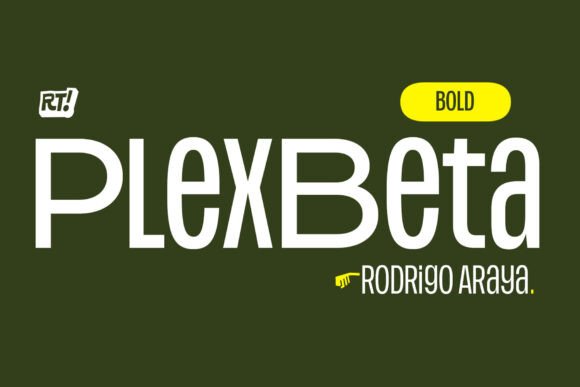
Plex Beta Bold Font: Elevate Your Design with a Powerful Sans-Serif Typeface
The world of typography is vast and diverse, with numerous font styles and families to choose from. When it comes to creating visually striking designs, the right font can make all the difference. This is where Plex Beta Bold comes into play – a robust and modern sans-serif font that is designed to bring clarity, presence, and impact to any design project. In this article, we’ll explore the features, benefits, and uses of Plex Beta Bold, and how it can elevate your design game.
Introducing Plex Beta Bold: A Powerful Sans-Serif Font
Plex Beta Bold is a part of the Plex Beta font family, which is known for its futuristic and geometric style. This bold weight is specifically designed to deliver maximum impact and legibility, making it perfect for standout headlines, logos, and poster designs. With its thick strokes and modern structure, Plex Beta Bold is sure to grab attention and leave a lasting impression.
Key Features of Plex Beta Bold
- Geometric Structure: Plex Beta Bold features a modern geometric structure that gives it a sleek and futuristic look.
- Thick Strokes: The font’s thick strokes provide excellent legibility and make it perfect for large-scale designs.
- Sans-Serif Style: The sans-serif style of Plex Beta Bold gives it a clean and minimalist look that works well in a variety of design contexts.
- Futuristic Style: The font retains Plex Beta’s signature futuristic style, making it ideal for designs that require a modern and edgy look.
Uses of Plex Beta Bold
Plex Beta Bold is a versatile font that can be used in a wide range of design projects. Here are some of the most popular uses of this powerful sans-serif font:
Headlines and Titles
Plex Beta Bold is perfect for creating attention-grabbing headlines and titles. Its thick strokes and modern structure make it easy to read, even at large sizes.
Logos and Branding
The bold and geometric style of Plex Beta Bold makes it an excellent choice for logos and branding projects. It can help create a strong and memorable visual identity for your brand.
Poster Designs
Plex Beta Bold is well-suited for poster designs, where its bold and eye-catching style can help grab attention and convey a message effectively.
Benefits of Using Plex Beta Bold
There are several benefits to using Plex Beta Bold in your design projects. Here are some of the most significant advantages:
Improved Legibility
The thick strokes and modern structure of Plex Beta Bold make it easy to read, even at large sizes or from a distance.
Enhanced Visual Impact
The bold and geometric style of Plex Beta Bold can help create a strong visual impact, making it perfect for designs that require attention-grabbing headlines or titles.
Versatility
Plex Beta Bold is a versatile font that can be used in a wide range of design projects, from posters and logos to headlines and titles.
Tips for Using Plex Beta Bold Effectively
Here are some tips for using Plex Beta Bold effectively in your design projects:
Use it for Headlines and Titles
Plex Beta Bold is perfect for creating attention-grabbing headlines and titles. Use it to create a strong visual impact and draw attention to your message.
Pair it with Other Fonts
Plex Beta Bold can be paired with other fonts to create a unique and visually appealing design. Experiment with different font combinations to find the perfect match.
Experiment with Different Sizes and Colors
Don’t be afraid to experiment with different sizes and colors of Plex Beta Bold. This can help create a visually appealing design that grabs attention and conveys your message effectively.
Plex Beta Bold is a powerful sans-serif font that can elevate your design game. With its thick strokes, modern geometric structure, and futuristic style, this font is perfect for creating attention-grabbing headlines, logos, and poster designs. By using Plex Beta Bold effectively, you can improve legibility, enhance visual impact, and create a strong visual identity for your brand.